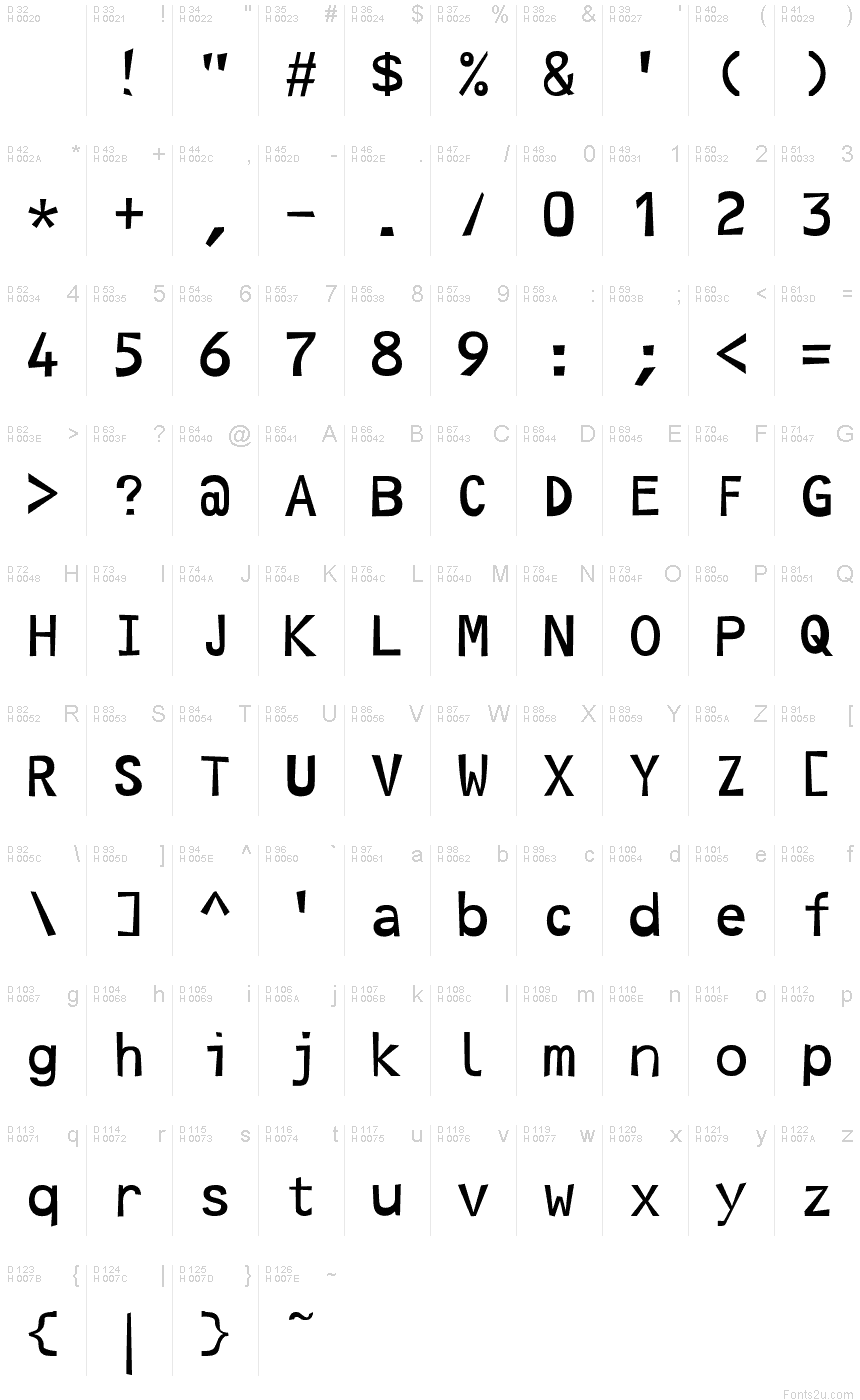
Hoptical
Hoptical font by Mike Hind is a free comic display typeface that nails that tricky sweet spot between handmade charm and real-world readability. Its tall, slightly tipsy letters feel inked by a confident marker-uneven enough to look human, steady enough to handle more than just goofy punchlines. The subtle wobble in the strokes keeps things light and conversational, without drifting into kid-cartoon territory.
Using Hoptical, you get a relaxed, offbeat voice that works beautifully for indie posters, zines, beer or coffee labels, web comics, social graphics, and playful branding. This free font holds up well at medium sizes where its quirks are clear but not overwhelming. Pair it with a clean geometric sans for body text, and let Hoptical handle your headlines, callouts, and logo wordmarks.